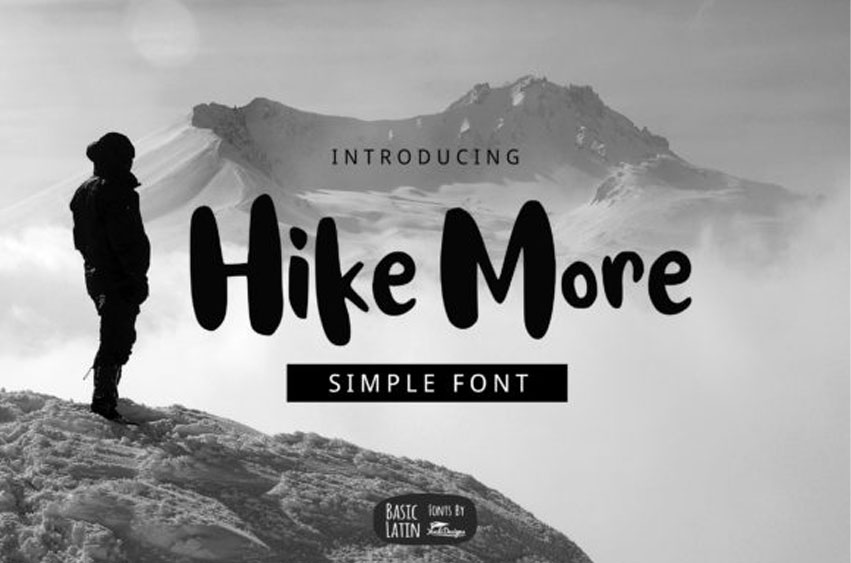
Hike More Font
Hike More Font is a bold and trendy looking handwritten font.
This font reads as strong, confident, and dynamic and can add tons of nostalgic character to your designs.